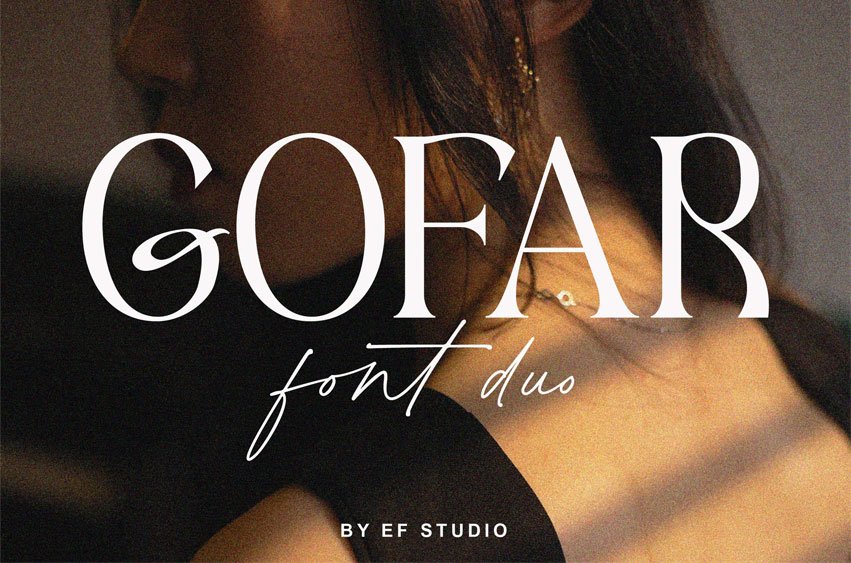
Gofar Font duo that combines Serif and Script fonts. The Gofar Serif font looks contemporary and modern; some letters have a unique form. You will also find the Gofar Script with ligatures that are beautiful to pair with.
This font is perfect for every project, like branding, editorial design, book, logo, website, social media, and any project you like.